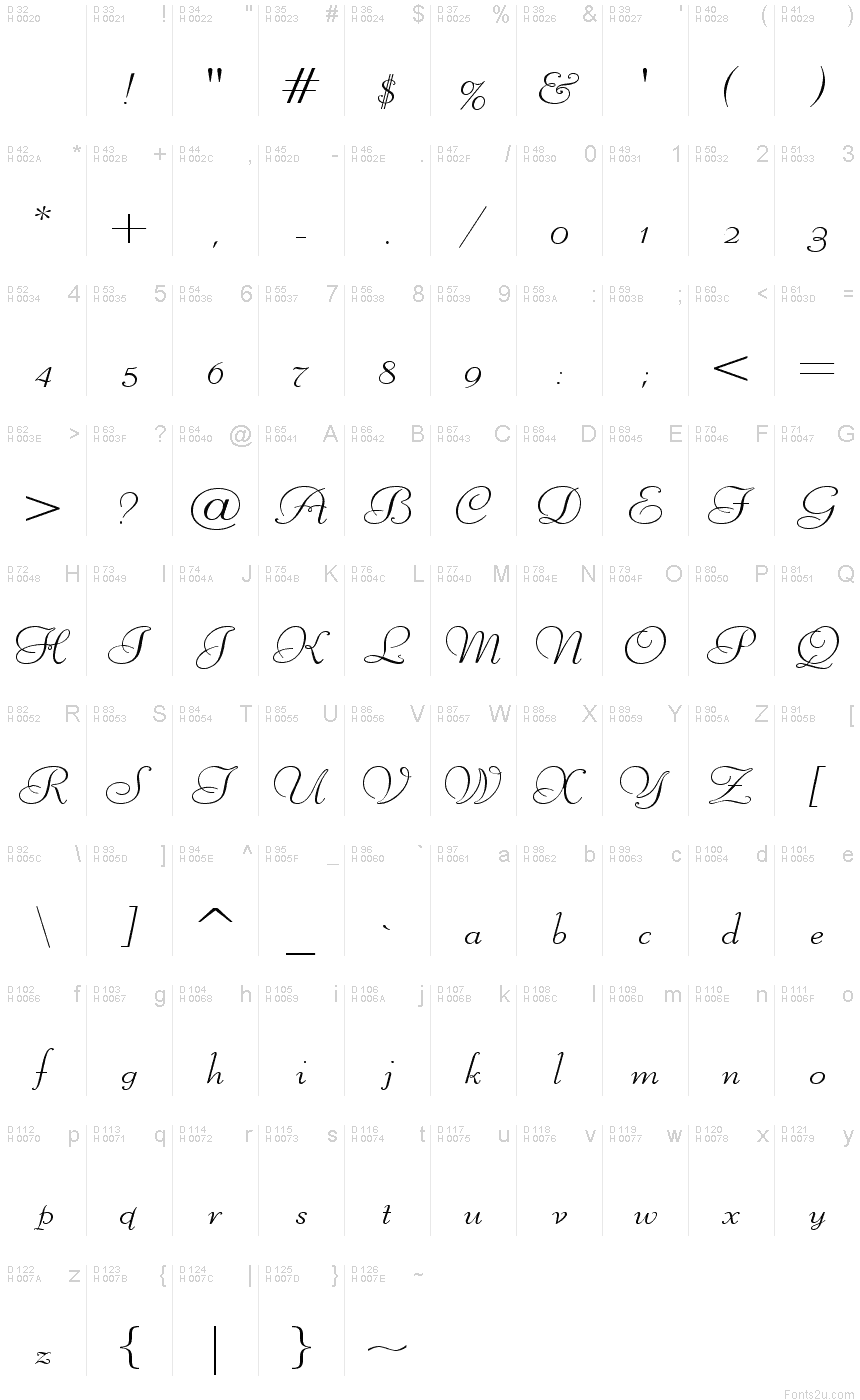
Liberate Wide Normal
Liberate Wide font by Bay Animation Inc. is a free calligraphy font with long flowing joins, a looping opening stroke, and slender letterforms that spread out across the line. The writing has a smooth, hand-drawn rhythm, with a graceful curve on the first character and rounded connections that keep the wordmark feeling airy rather than crowded.